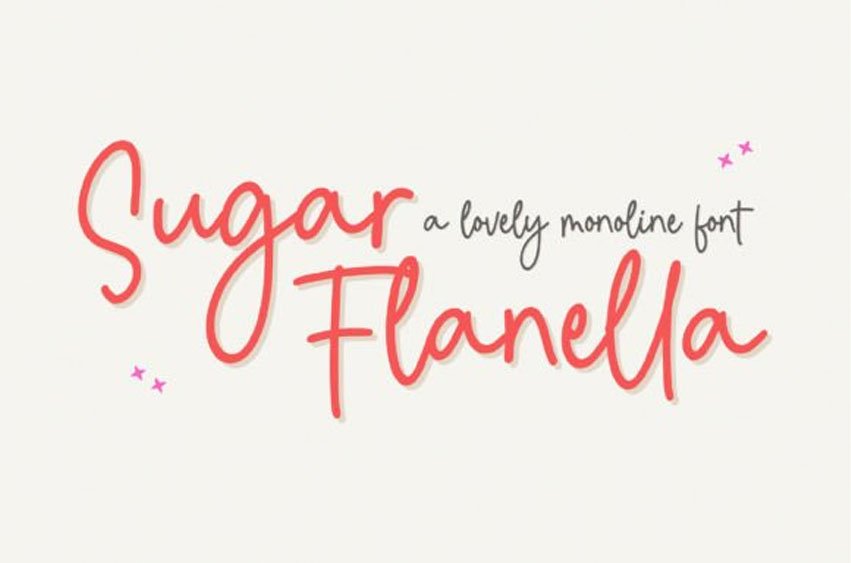
Sugar Flanella Font is a lovely monoline script font that can be used for all chalkboard quotes or teaching material! Its authentic look will add a personal and realistic feel to your designs.
It fits in headlines, logos, posters, flyers, invitations, name cards, branding materials, print media, editorial layouts, and many more.